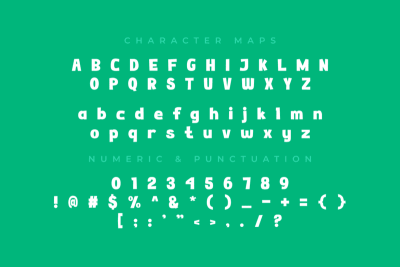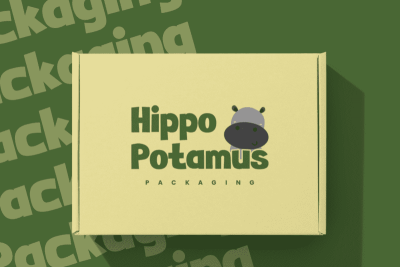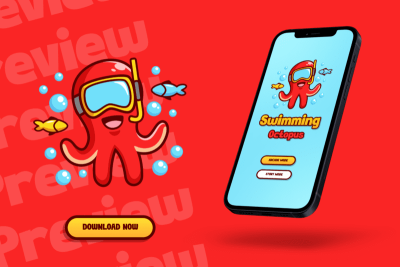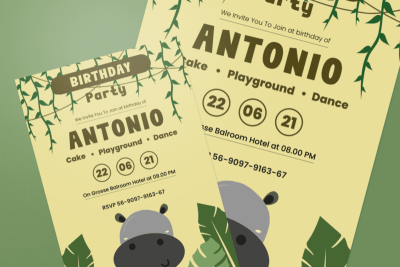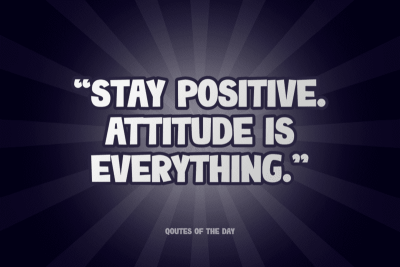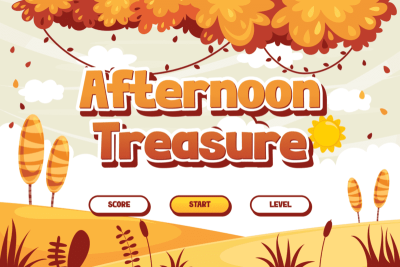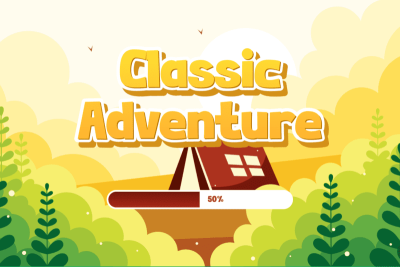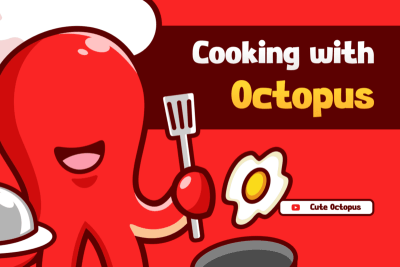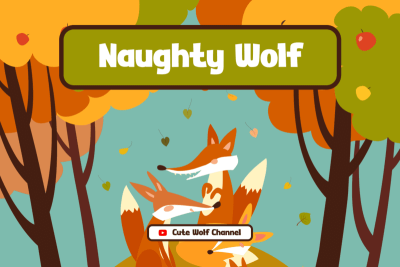
Gaming Font Onacona is a vibrant and creative typeface designed to elevate your design projects. Perfect for game interfaces, bold logos, or standout marketing materials, this font combines playfulness with professionalism. The bold, rounded edges not only ensure excellent readability but also infuse your designs with a modern and adventurous personality.
Inspired by the lush, vibrant tropics, Onacona evokes a sense of exploration and excitement. This makes it an exceptional choice for projects that aim to captivate and engage audiences. Whether youโre designing for fast-paced arcade games or immersive strategy titles, this font adapts effortlessly to various genres. Its dynamic and unique appearance ensures that your visuals will stand out and leave a memorable impression.
Gaming Font onacona Perfect Choice for Gaming Enthusiasts and Designers
Gaming Font Onacona is more than a typeface; itโs a creative partner for designers and gaming enthusiasts alike. Its charming and approachable aesthetic allows you to craft designs that are not only visually appealing but also deeply engaging. The smooth, rounded strokes and bold structure are optimized for digital displays, ensuring clarity and legibility across all platforms.
For content creators, marketers, and game developers, Gaming Font Onacona offers a unique way to enhance visuals. It effortlessly combines style and function, enabling you to create cohesive and immersive designs. Whether youโre crafting eye-catching titles, dynamic banners, or polished in-game text, this font brings a sense of fun and professionalism to your work.
Gaming Font Onacona truly stands out because of its ability to communicate energy and creativity in every design. Its tropical-inspired charm makes it a versatile and reliable tool for any project, from branding to interactive experiences. By choosing Onacona, youโre not just selecting a fontโyouโre embracing a bold and exciting style that resonates with modern gaming culture.